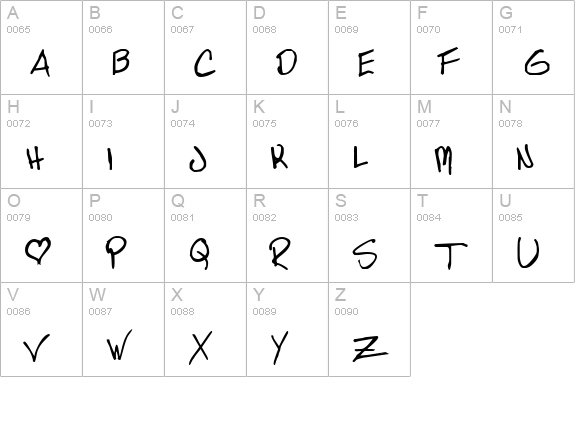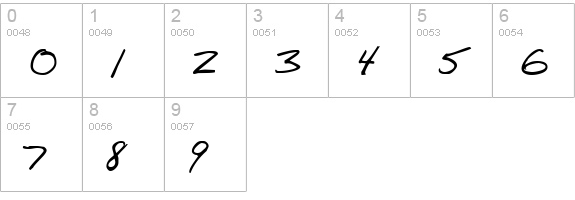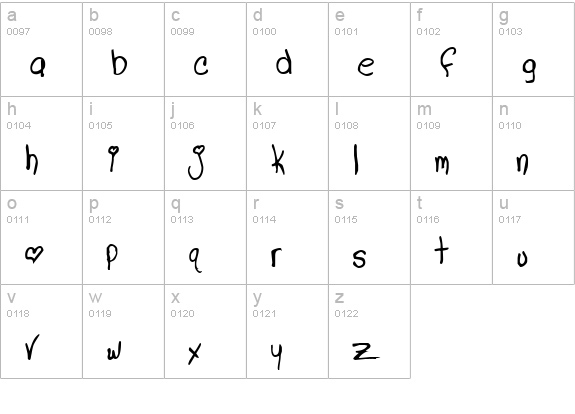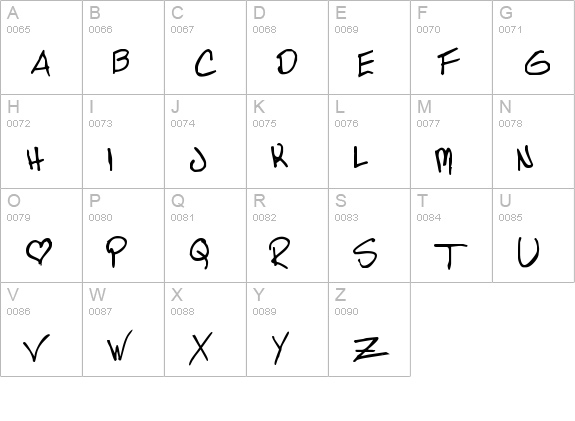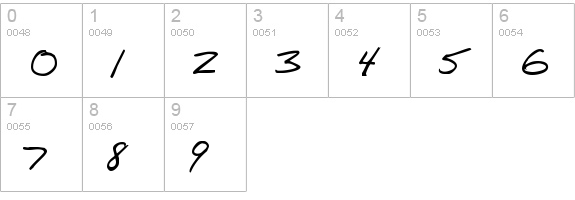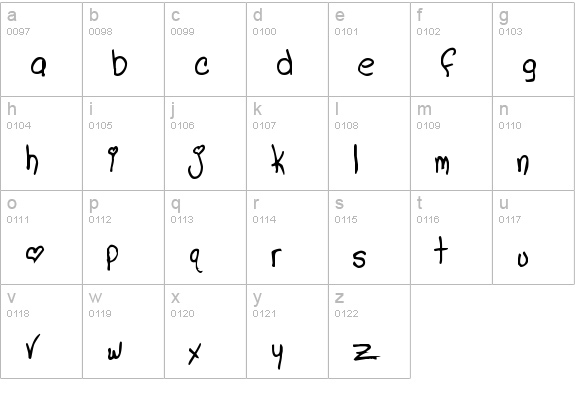
Lindas Lament Font Details
Lindas Lament font is a stunning display typeface that combines elegance with a touch of nostalgia. Its intricate details and graceful curves evoke a sense of timeless beauty, making it perfect for a variety of design projects. Whether you're creating invitations, posters, or branding materials, Lindas Lament font will add a touch of sophistication to your work. What's even better is that Lindas Lament font is available for free download at FontsMarket.com. This means you can easily access this exquisite font and elevate your designs without any cost. Don't miss out on the opportunity to add Lindas Lament font to your font collection and bring a touch of class to your projects. Download it today and let your creativity shine!